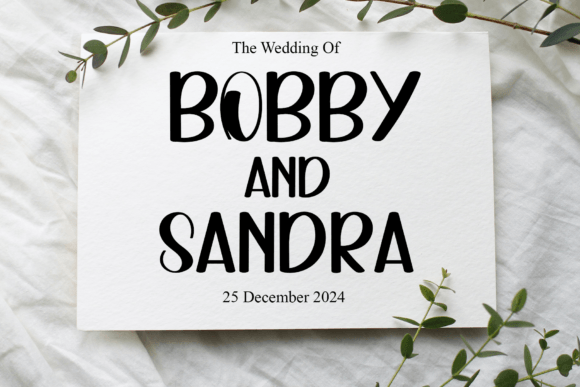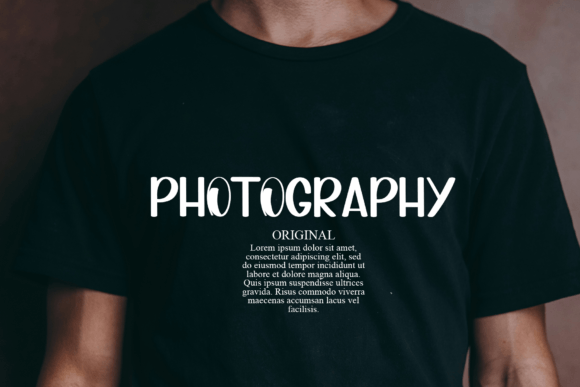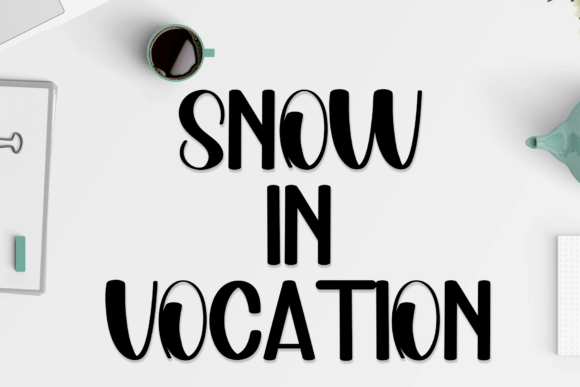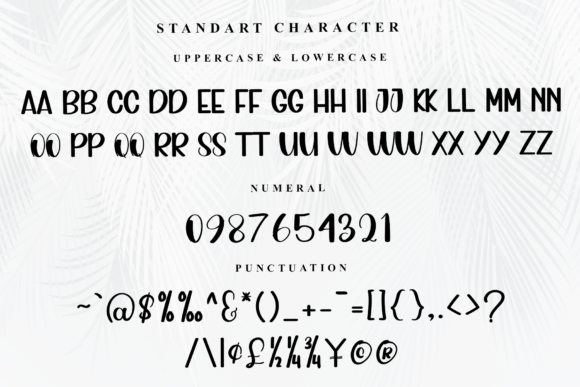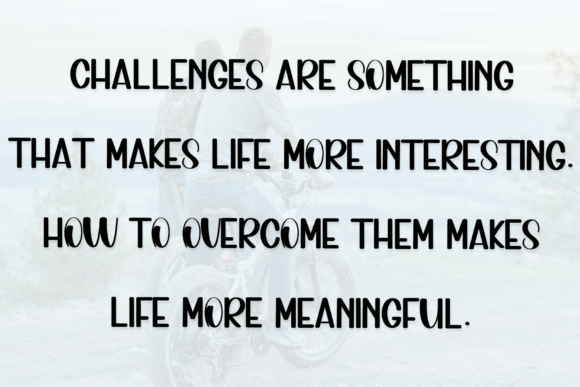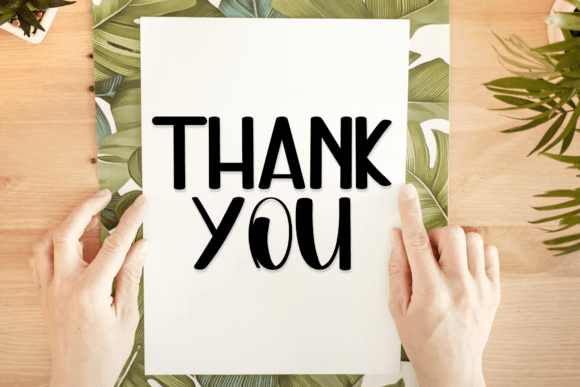
Introduction to Magazine Font
Magazine is a charming handwritten font imbued with a sense of freshness and casual elegance.
Its fluid strokes and organic lines evoke a laid-back vibe, making it perfect for various design projects Whether used for branding, invitations, or social media graphics, Magazine adds a touch of warmth and personality.
Key Features of Magazine Font